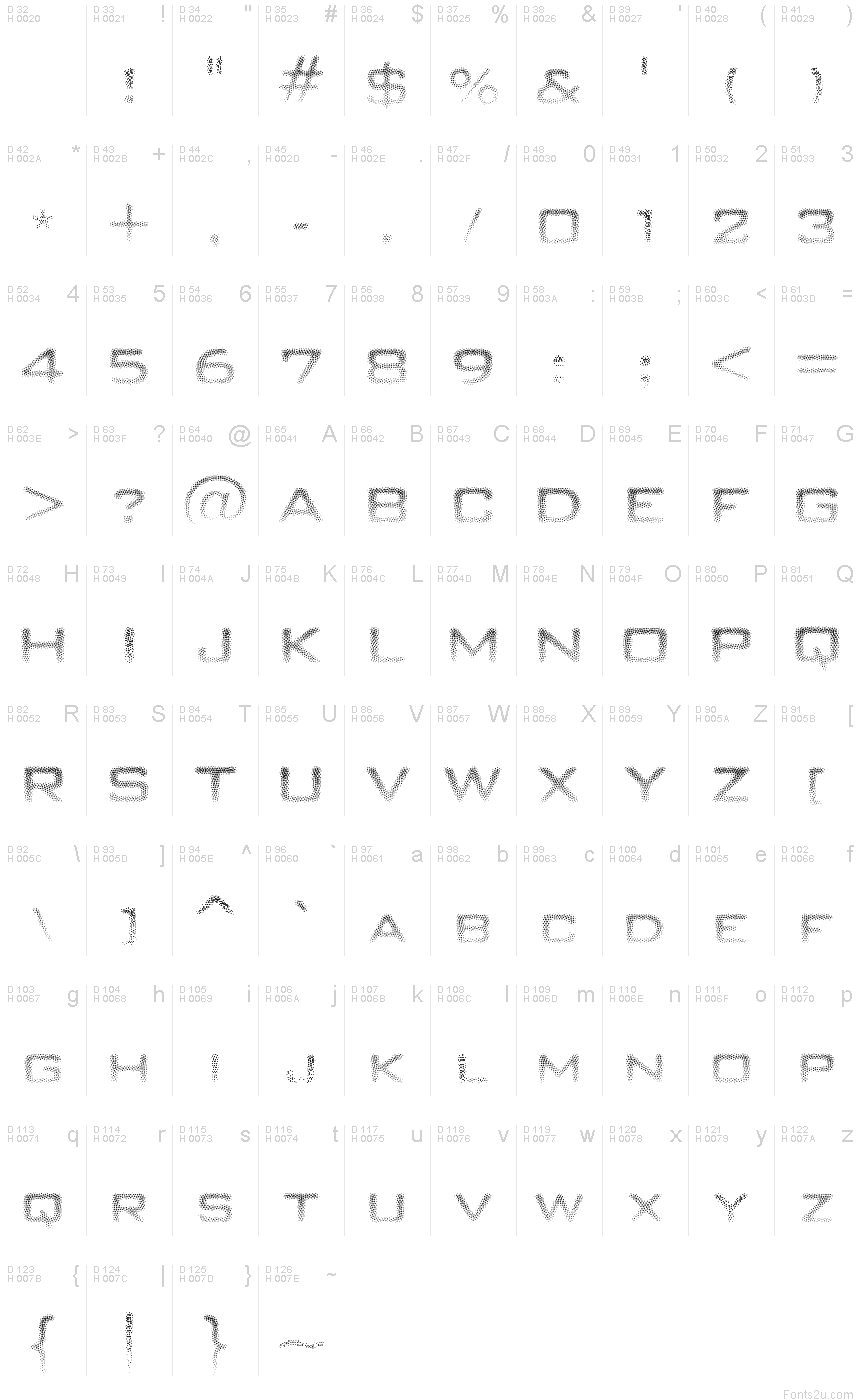
Unity Dances by S. John Ross of Cumberland Games is a free pointillist display font built from loose constellations of small circular marks. Simple upright shapes flicker at the edges as their dot clusters shift.
Its scattered construction can echo confetti, stage lights, or stippled illustration, a connection that suits dance event posters, music merchandise, festival branding, and playful digital graphics built around celebratory themes and live performance. Entertainment branding is its clearest role, since the dotted letters can merge with spotlights, streamers, and crowd imagery instead of serving only as a neutral title for a poster or event campaign.